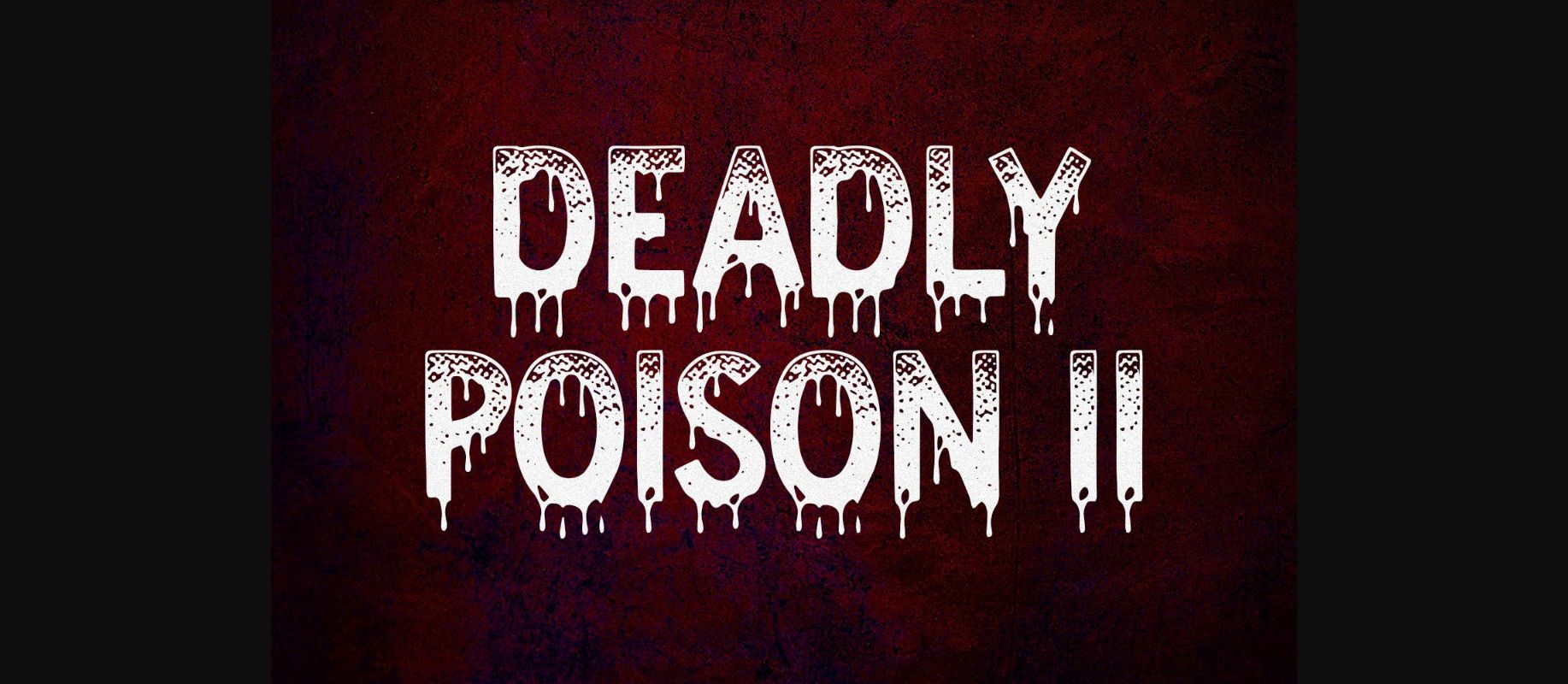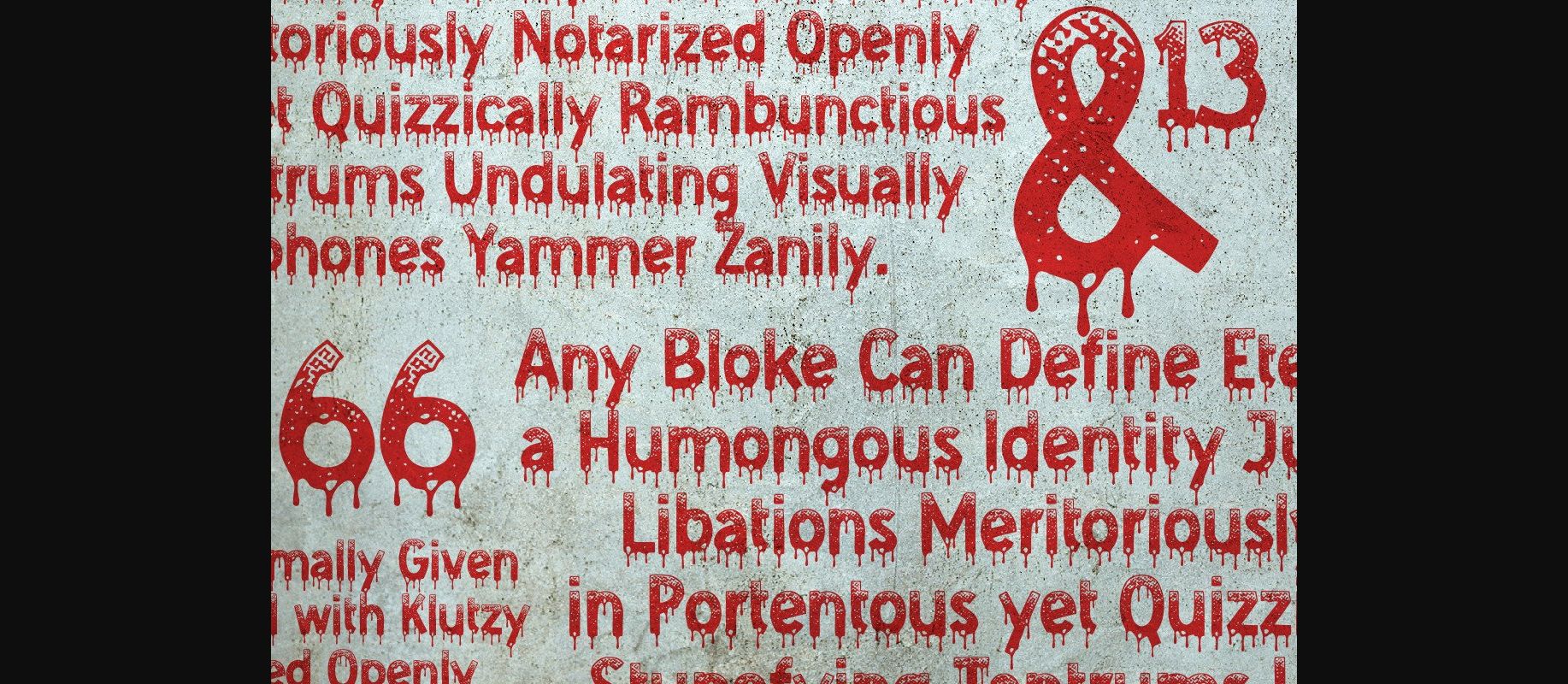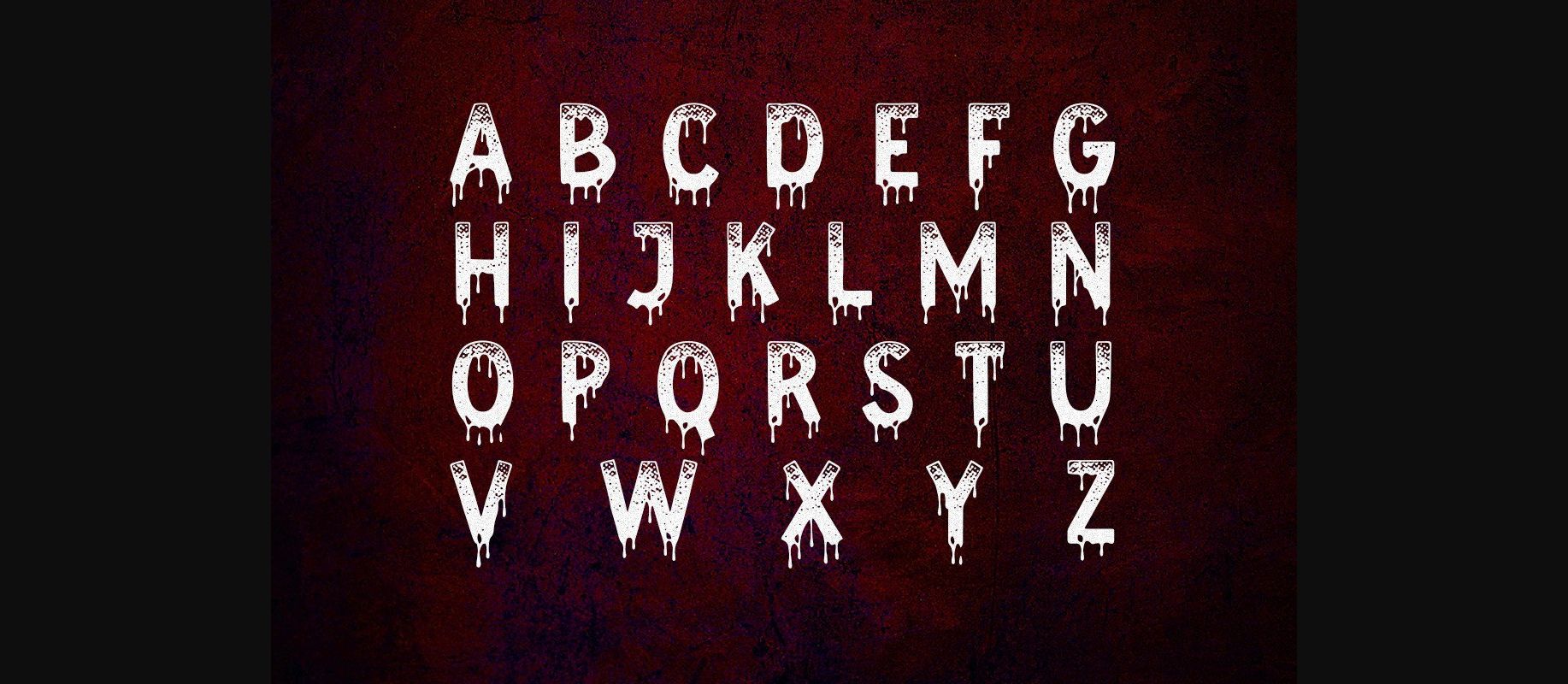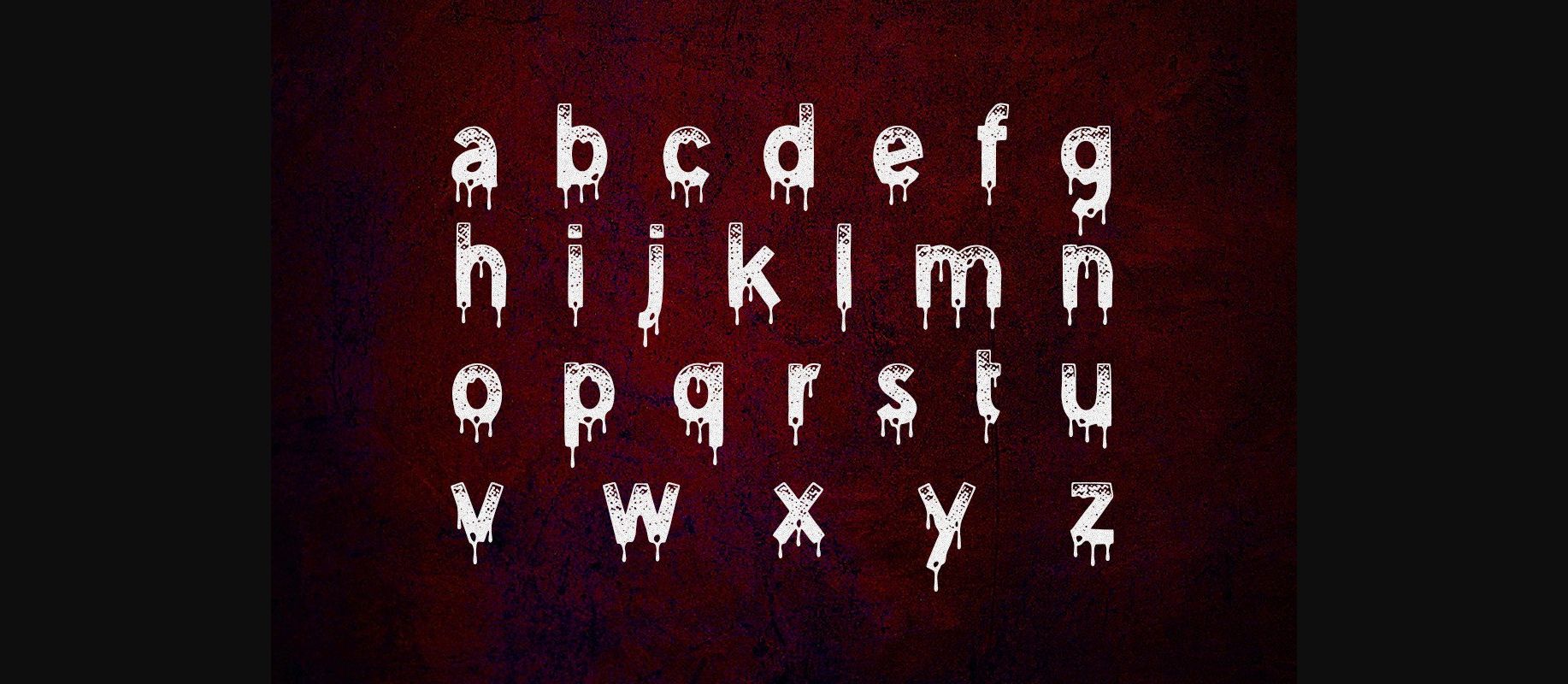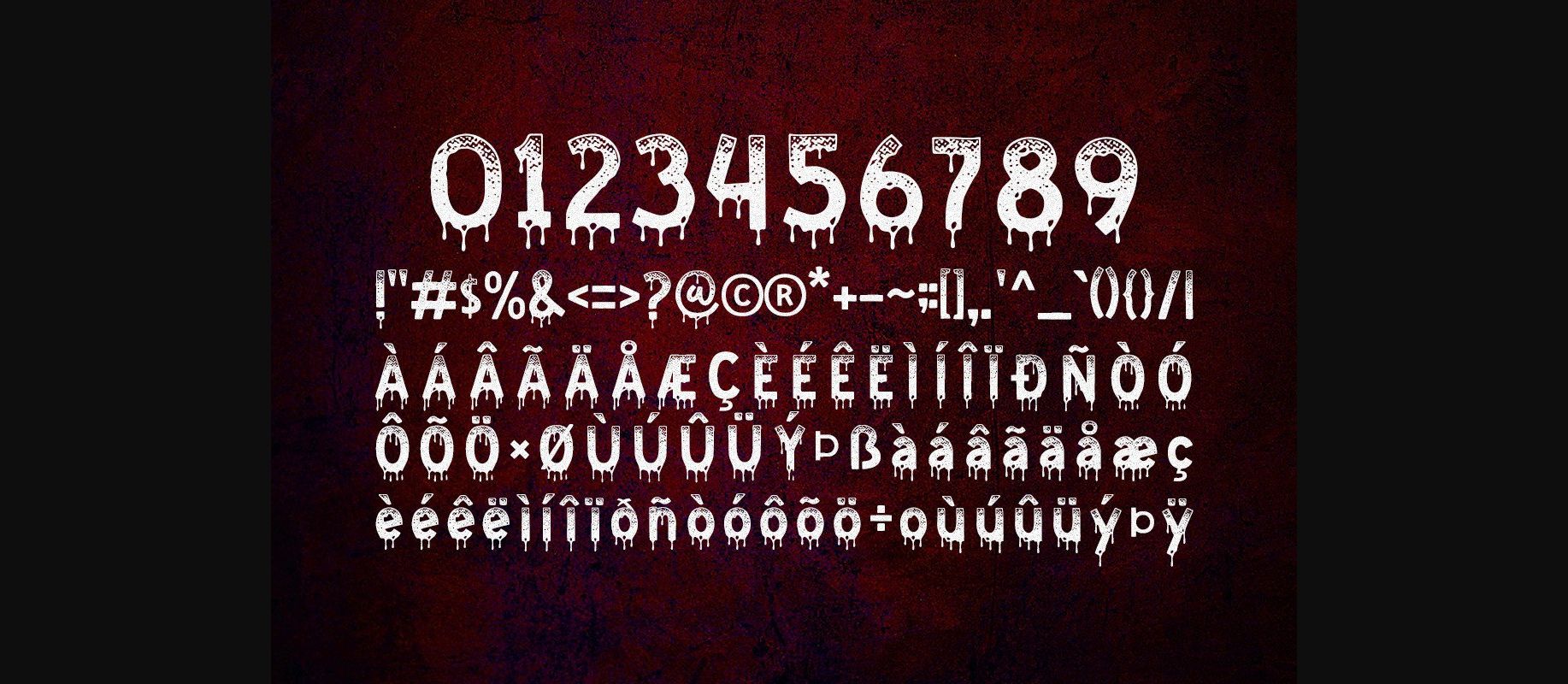
About Deadly Poison Ii Font
Deadly poison II is the perfect typeface for horror movies, graphic artists, and all who love the undead. It’s great for all kinds of projects that require a perfect touch of blood and death, such as video game titles, posters, outfits, album covers, horror movies, etc.